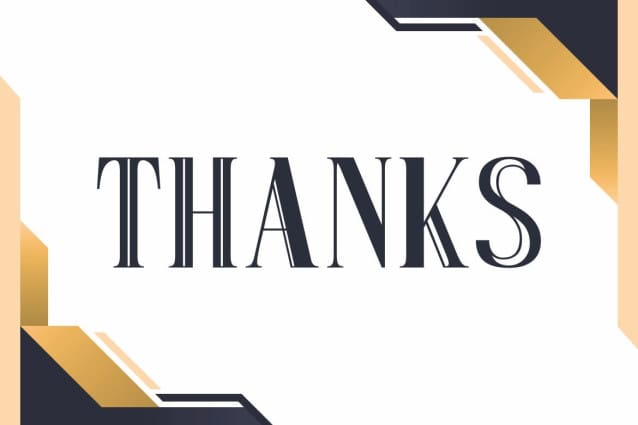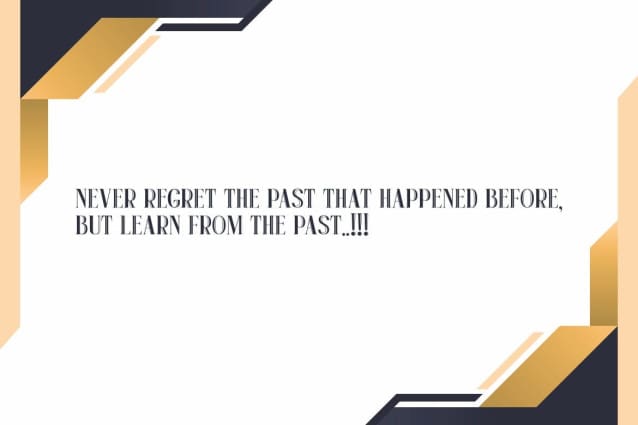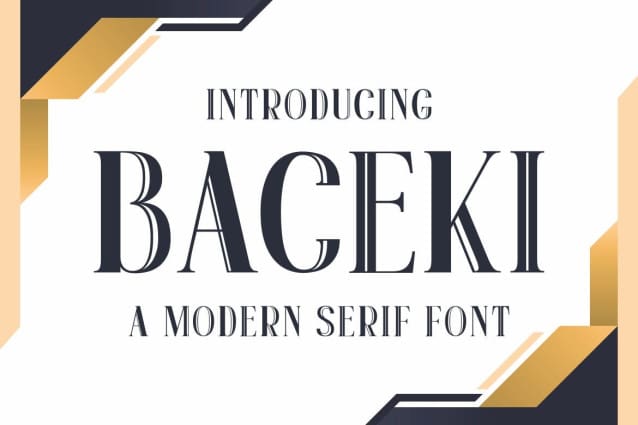
Baceki Font
Baceki Font is a modern and authentic font. Perfect for both professional and branding needs of a product. This font is suitable for any branding project like quotes, logo, blog header, poster, banding, letter, invitation, stationery, etc… Designed as a versatile and flexible that can be used on a range of projects and mediums. outstanding in a wide range of contexts.